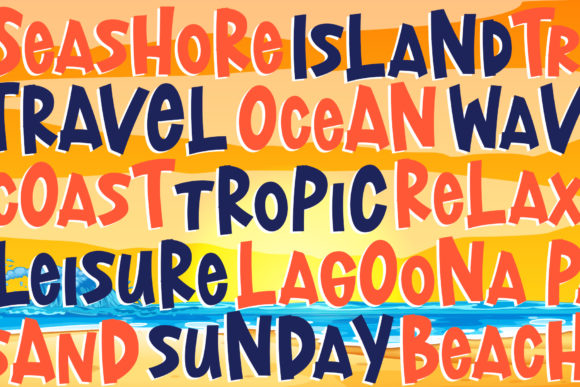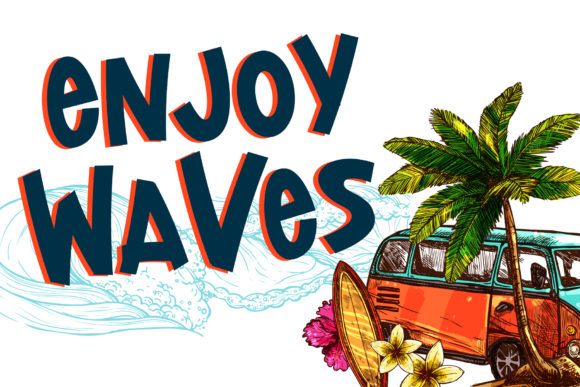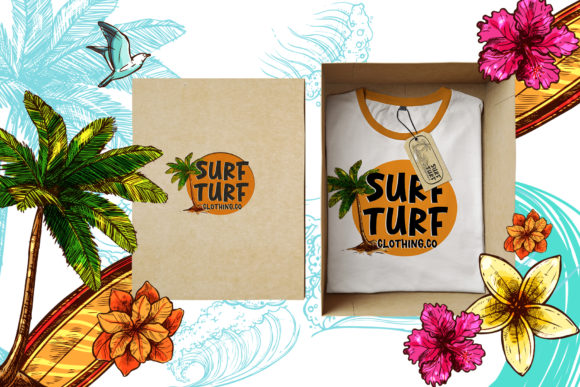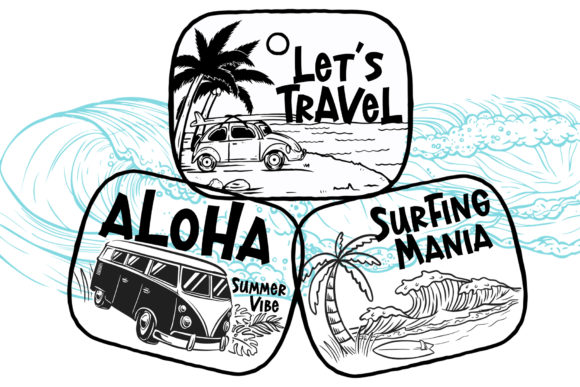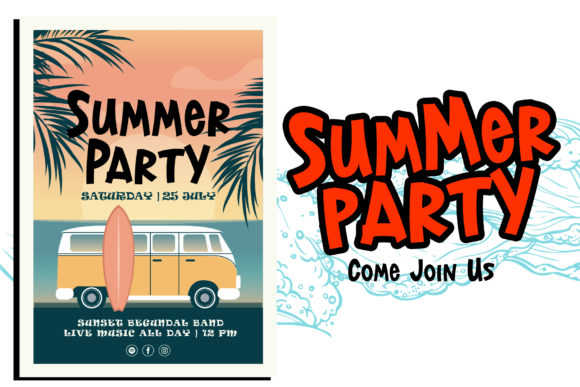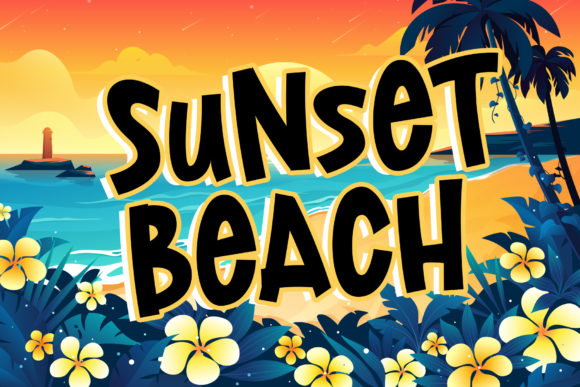
Introduction to Lost Island Font
Lost Island is a unique display font, designed with chunky characters.
Bold and incredibly versatile, this font will make all of your creative ideas stand out .
Key Features of Lost Island Font